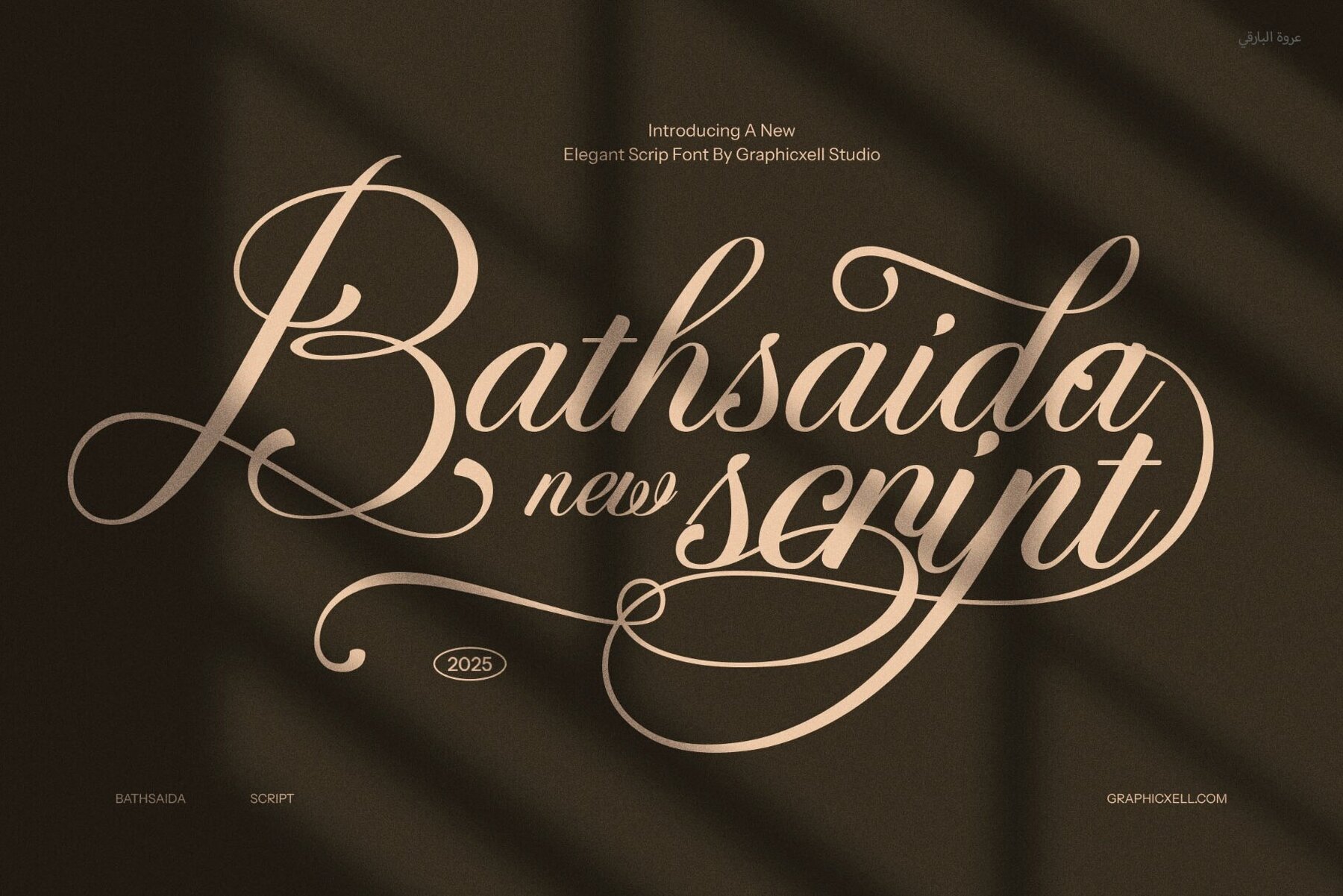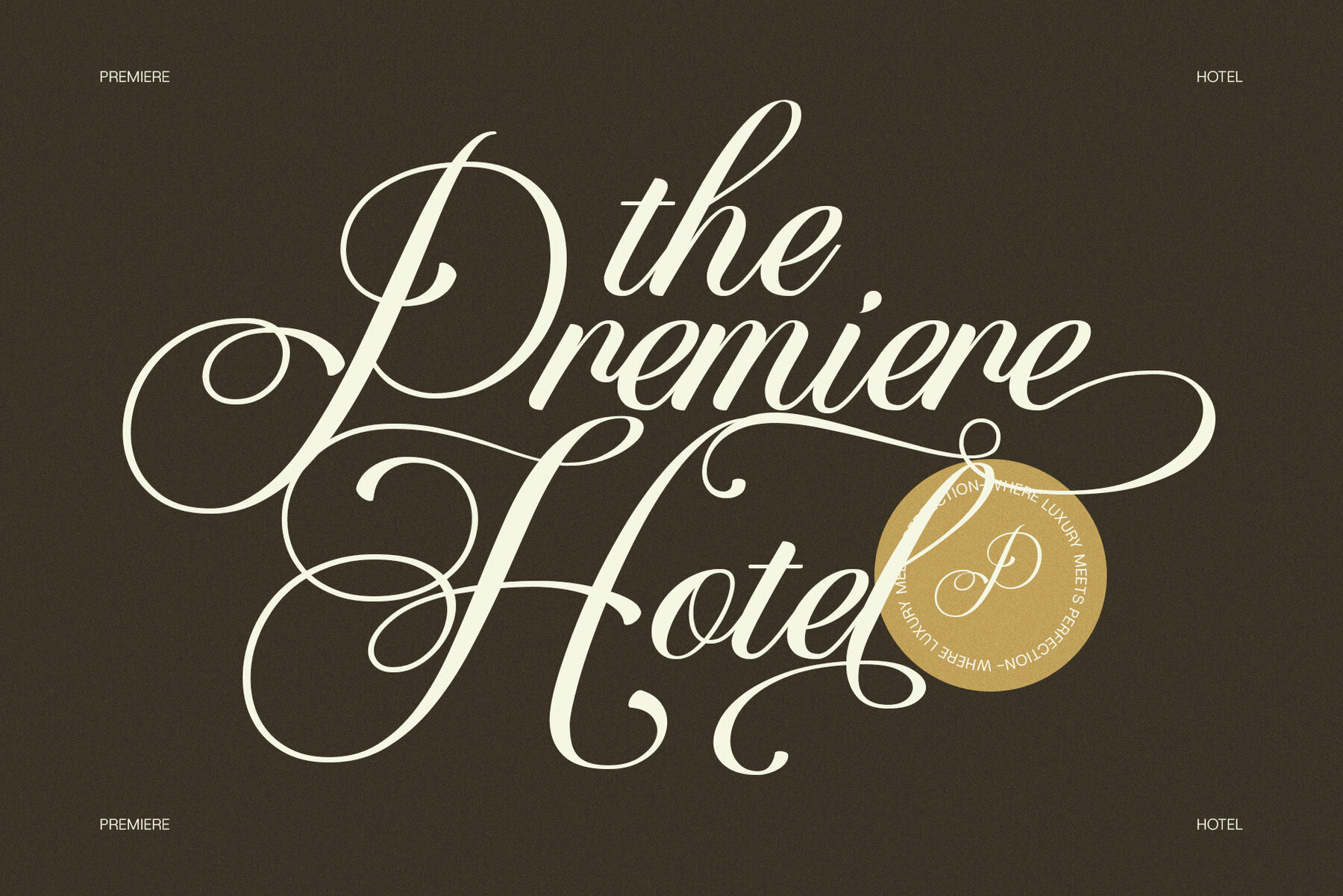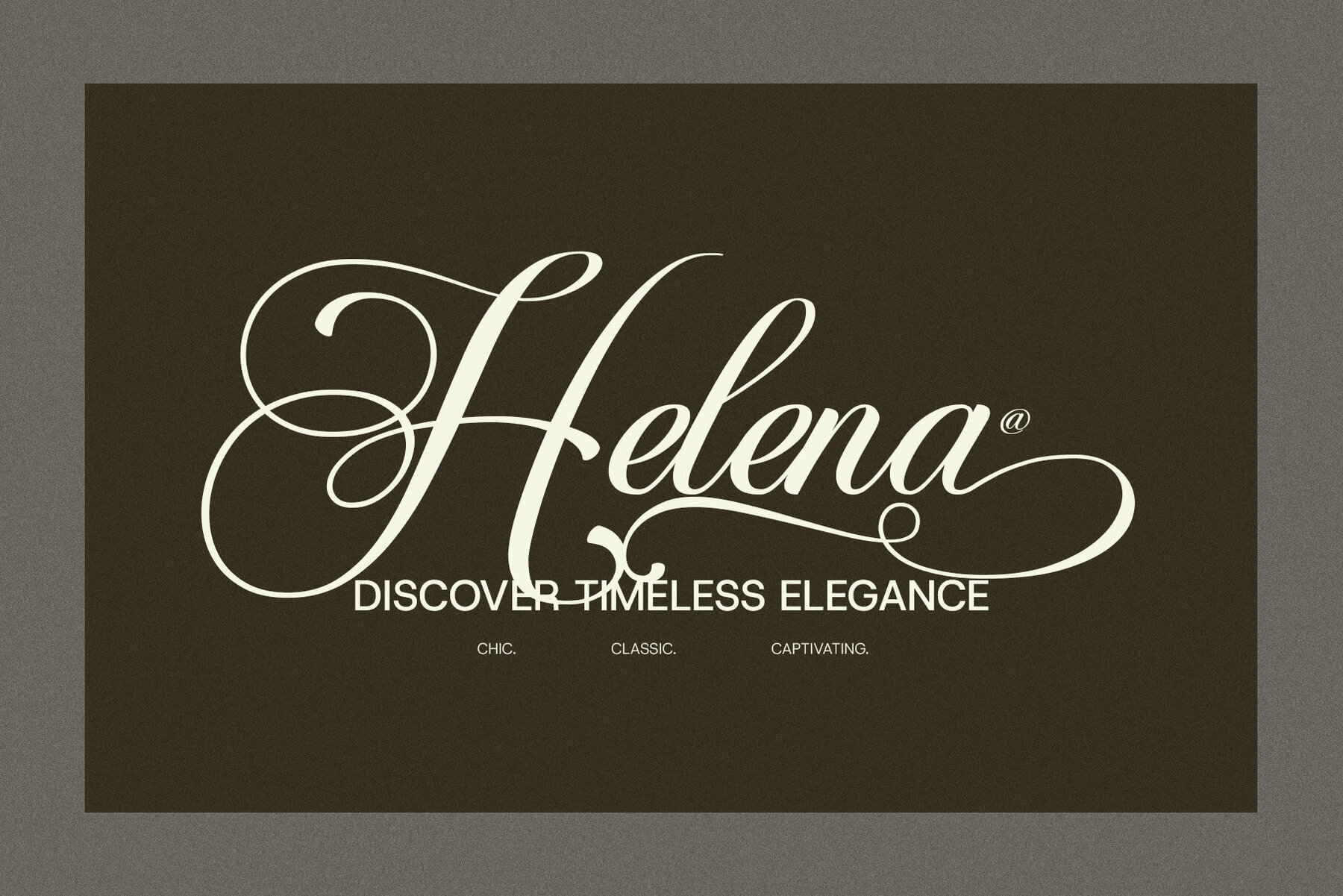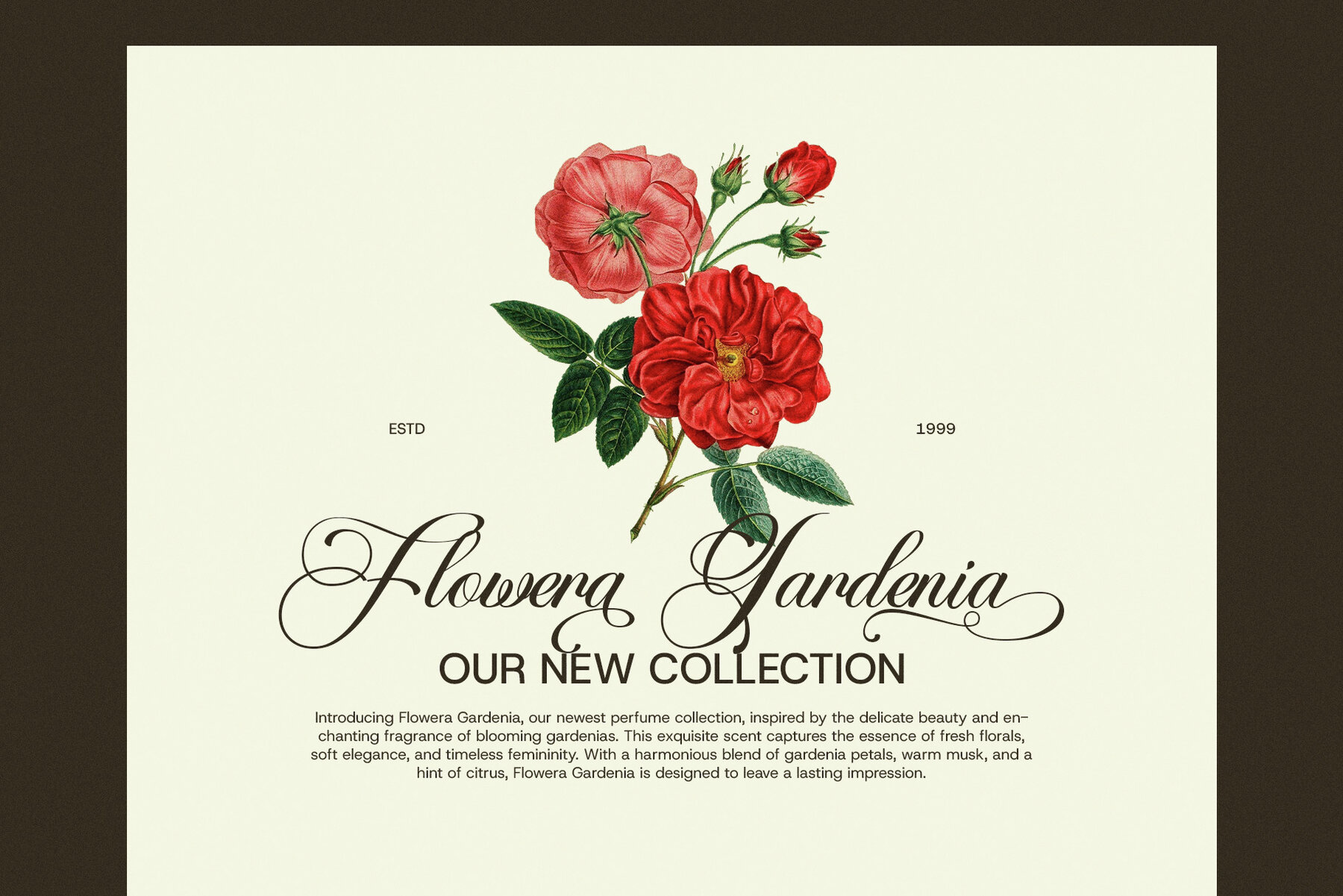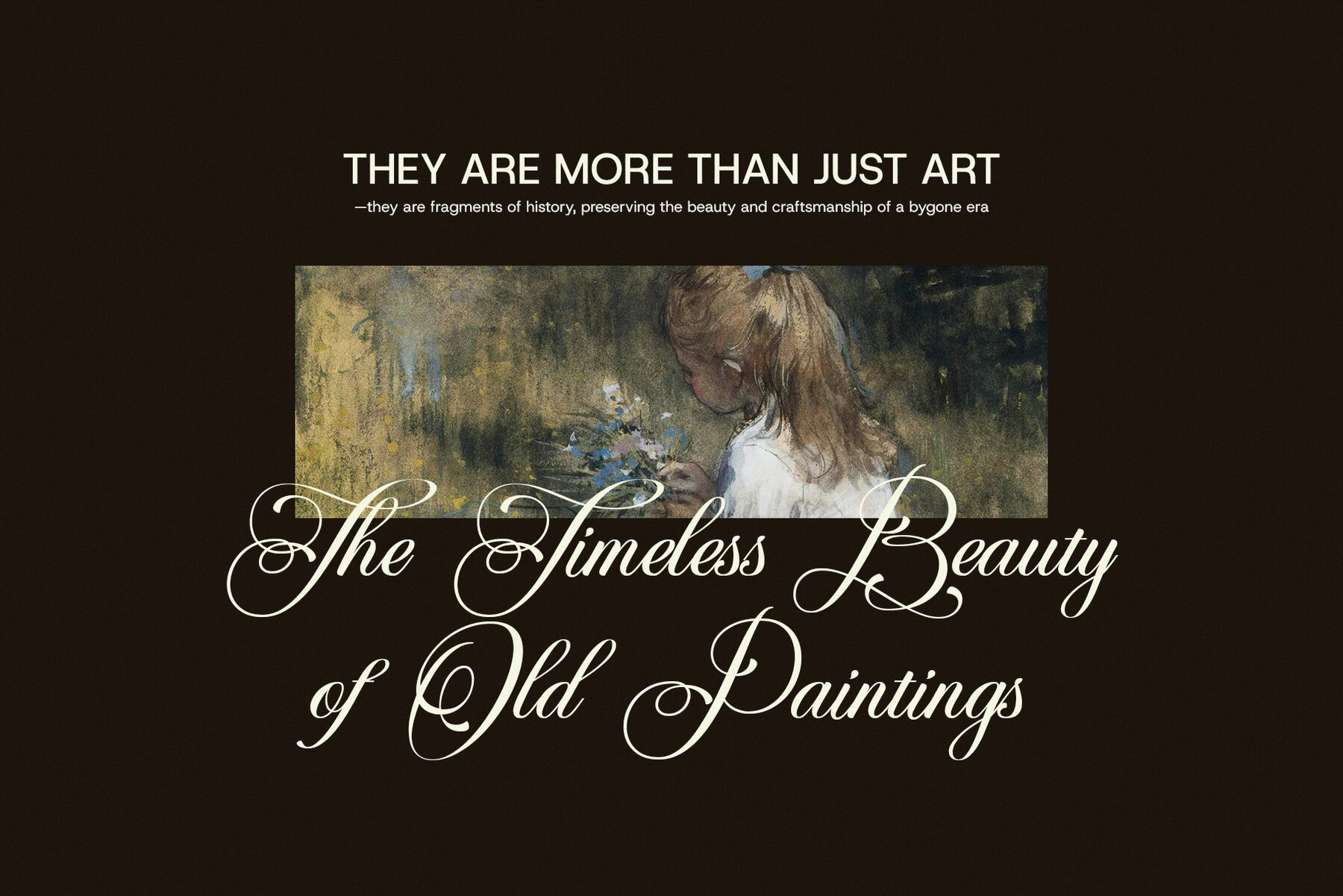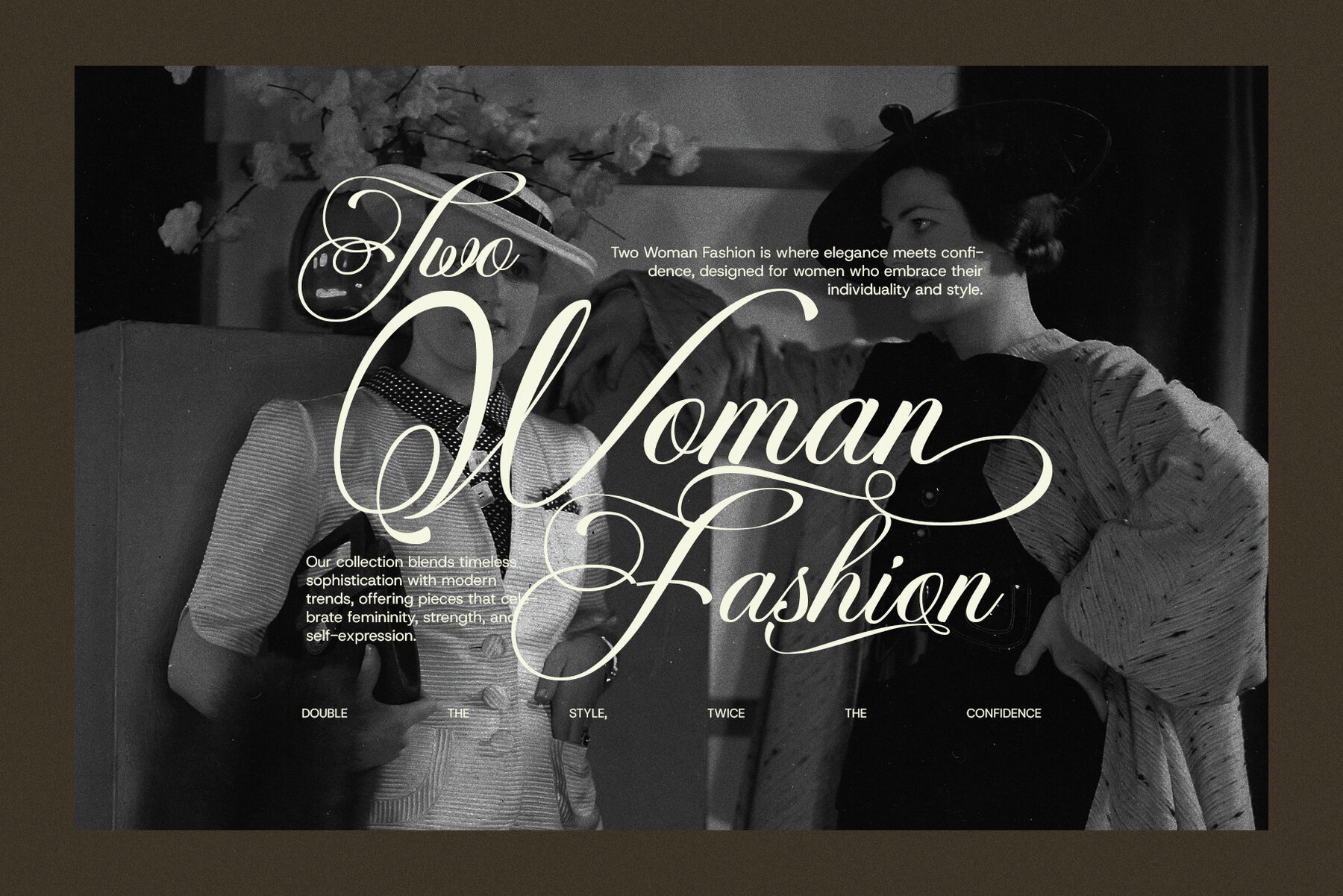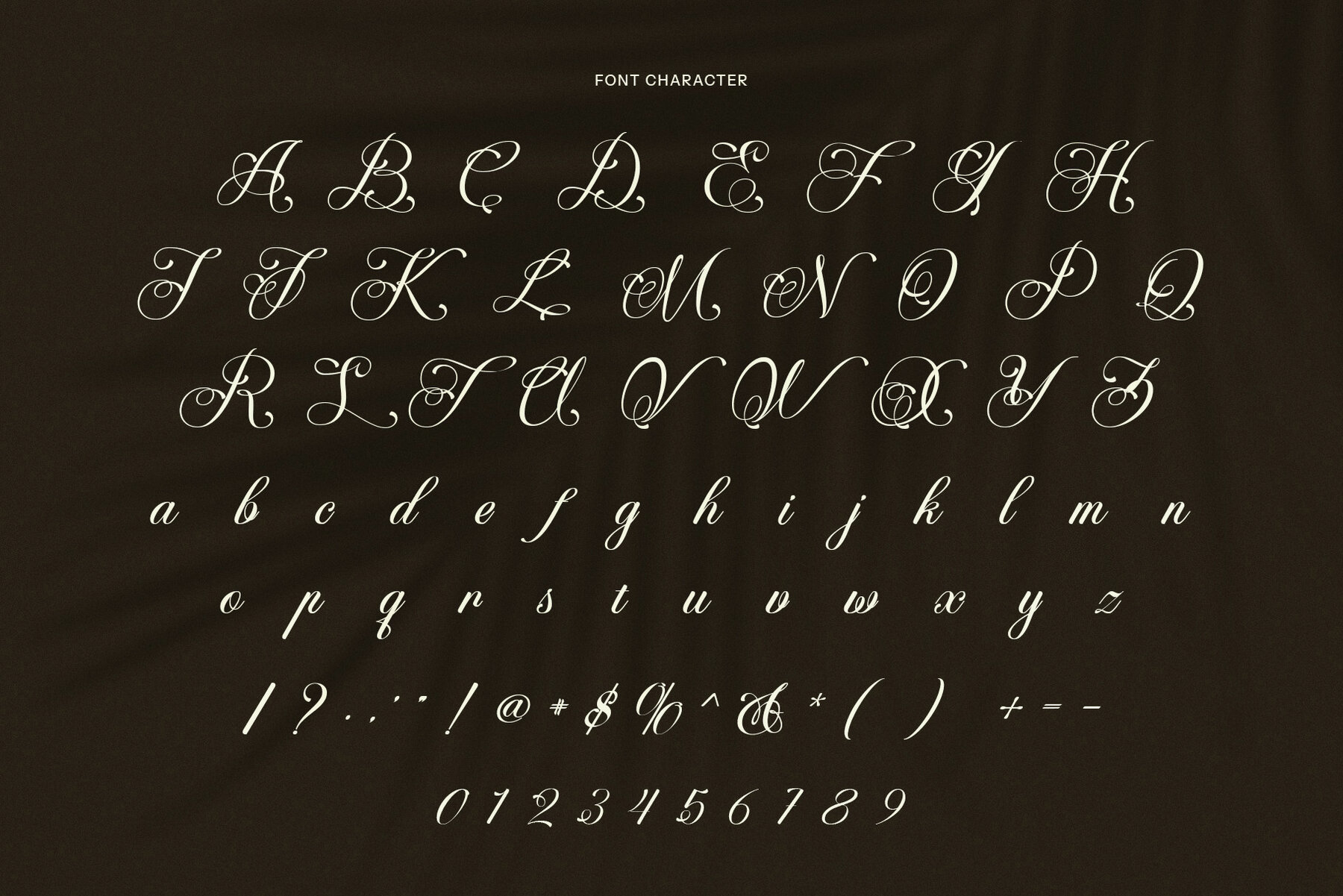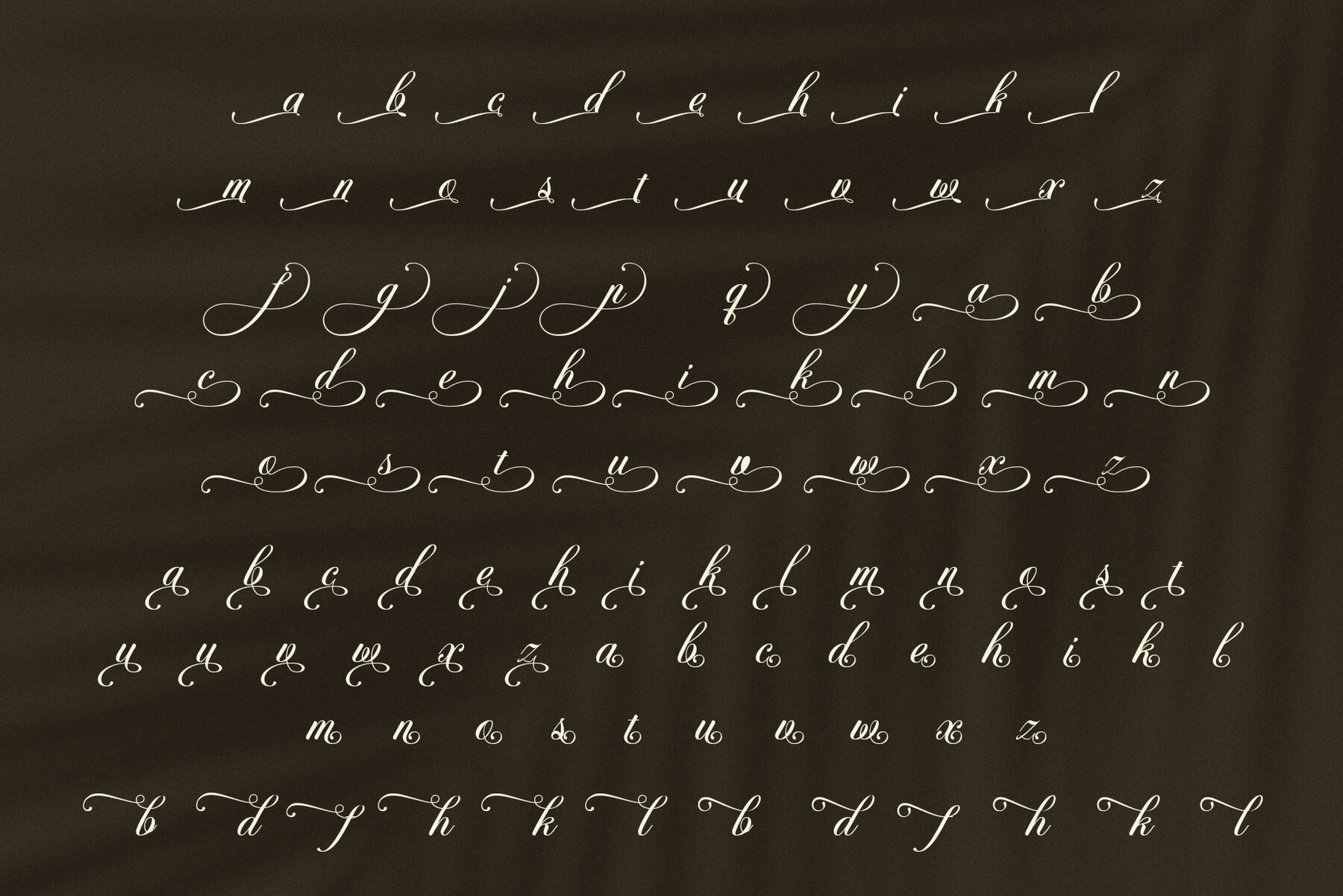
Bathsaida Font
Bathsaida Regular
Bathsaida by Graphicxell is a sophisticated calligraphy script font that radiates timeless elegance. Designed with flowing strokes and refined details, this typeface adds a luxurious and artistic touch to any project. Its smooth curves and elegant flourishes create a handcrafted, high-end feel, perfect for enhancing your designs. Boasting a rich array of alternates and swashes, Bathsaida offers boundless creativity, making it an ideal choice for branding, logos, and premium packaging. Whether it's wedding invitations, signature-style logos, or stylish social media graphics, Bathsaida enriches your work with a polished yet natural aesthetic. Its meticulously crafted letterforms ensure readability while retaining the charm of authentic calligraphy. Perfect for wedding stationery, album covers, luxury product packaging, editorials, business cards, and elegant website headers, Bathsaida seamlessly melds classic calligraphic strokes with modern design sensibilities. It's suited for both digital and print media, making it a versatile addition to your font repertoire. Designed for artists and creatives seeking sophistication, romance, and expressive art in their fonts, Bathsaida is an essential choice. Its fluidity, ornate details, and seamless letter connections offer every word a personal, stylish flourish. Discover the beauty of calligraphy with Bathsaida, where elegance and creativity unite to bring your designs to life.Bathsaida Calligraphy Script Font